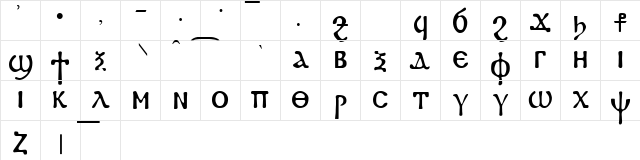
Bahairic Regular
Design Context for Bahairic Typeface
Bahairic is a composed and adaptable typeface that performs quietly and consistently across a wide range of design contexts.